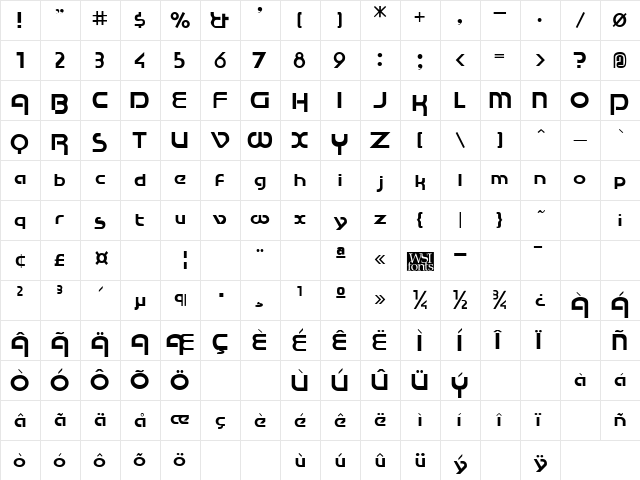
Pocono Regular Font Preview
Pocono Regular
Design Context for Pocono Typeface
Pocono is a composed and adaptable typeface that performs quietly and consistently across a wide range of design contexts.